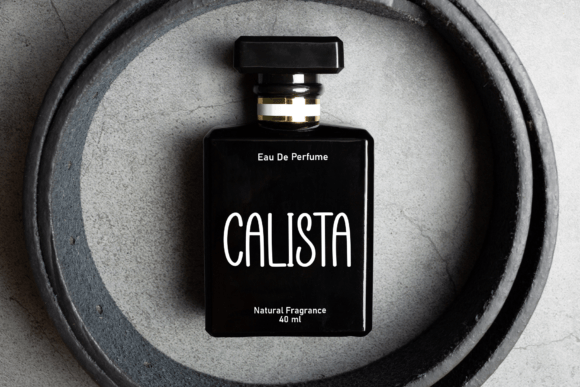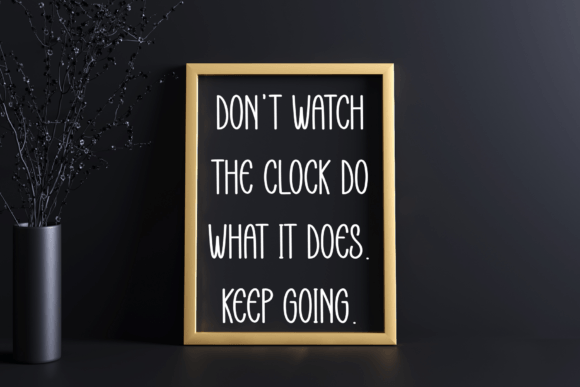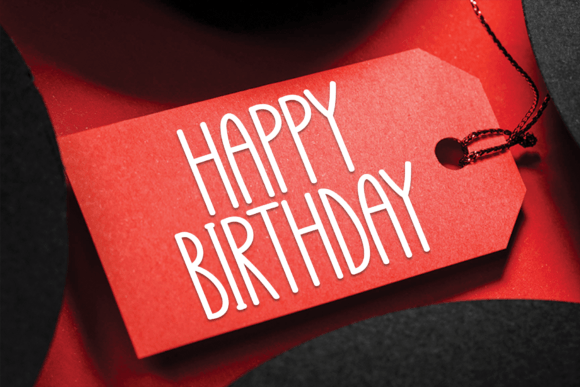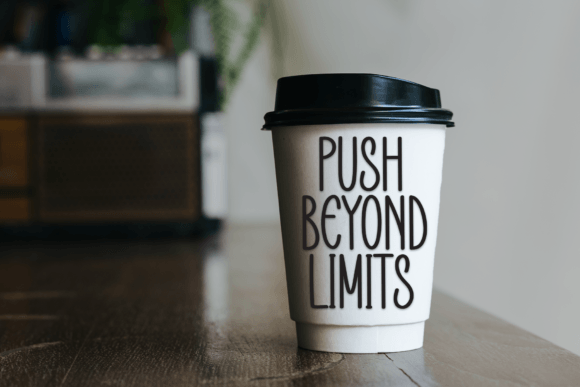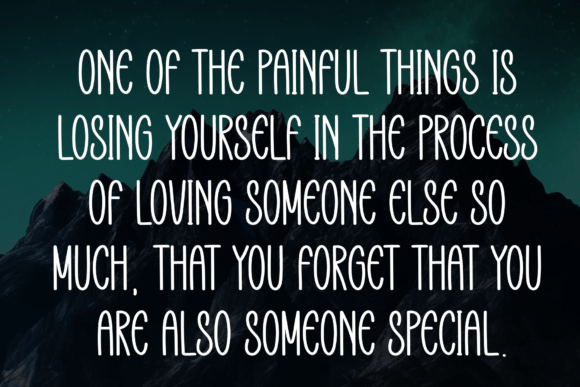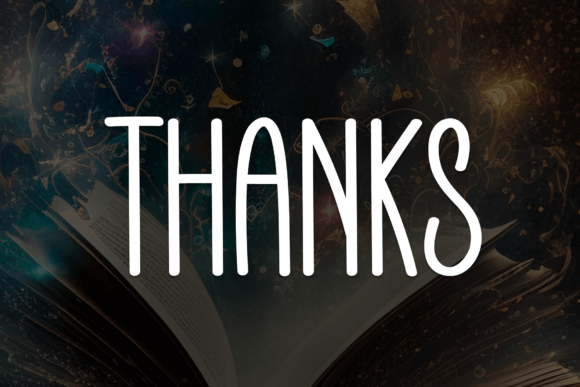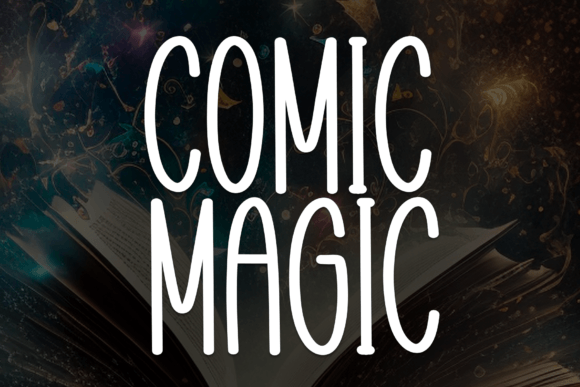
Introducing Comic Magic Font: The Sweet and Friendly Handwritten Font for Your Creative Projects
Are you a designer, crafter, or DIY enthusiast looking for a font that can add a touch of personality and whimsy to your projects? Look no further than Comic Magic Font! This sweet and friendly handwritten font is perfect for a wide range of designs, from playful crafts to professional branding materials. In this article, we’ll explore the unique features of Comic Magic Font and how it can bring your creative projects to life.
The Charm of Comic Magic Font
Comic Magic Font is a beautifully crafted handwritten font that exudes a sense of warmth and friendliness. Its natural and unique style makes it incredibly versatile, allowing you to use it in a variety of contexts. Whether you’re designing a logo, creating a social media graphic, or crafting a handmade card, Comic Magic Font is sure to add a touch of magic to your project.
One of the standout features of Comic Magic Font is its ability to evoke a sense of playfulness and imagination. Its whimsical lines and curves make it perfect for designs that require a touch of humor or wit. At the same time, the font’s elegance and sophistication ensure that it can be used in more formal contexts, such as business branding or advertising materials.
Endless Possibilities with Comic Magic Font
The only limit to using Comic Magic Font is your imagination! This font can be used in a wide range of projects, including:
- Handmade crafts, such as card making, scrapbooking, and DIY gifts
- Digital designs, including social media graphics, blog posts, and email newsletters
- Branding materials, such as logos, business cards, and letterheads
- Advertising materials, including flyers, brochures, and posters
- Web design, including website headers, footers, and other graphical elements
Whether you’re a professional designer or a crafty hobbyist, Comic Magic Font is sure to inspire your creativity and bring a touch of personality to your projects.
Why Choose Comic Magic Font?
So why choose Comic Magic Font over other fonts? Here are just a few reasons why this font stands out:
- Unique and distinctive style: Comic Magic Font has a one-of-a-kind look that will set your designs apart from the crowd.
- Highly versatile: This font can be used in a wide range of contexts, from playful crafts to professional branding materials.
- Easy to read: Despite its whimsical style, Comic Magic Font is highly legible, making it perfect for designs that require a clear and easy-to-read font.
Tips for Using Comic Magic Font
Here are a few tips for getting the most out of Comic Magic Font:
- Experiment with different colors and textures: Comic Magic Font looks great in a variety of colors and textures, so don’t be afraid to get creative!
- Pair it with other fonts: Comic Magic Font pairs well with other fonts, so try combining it with a bold font for headings or a clean font for body text.
- Use it consistently: To create a cohesive look, use Comic Magic Font consistently throughout your design.
By following these tips, you can unlock the full potential of Comic Magic Font and create designs that are truly magical.